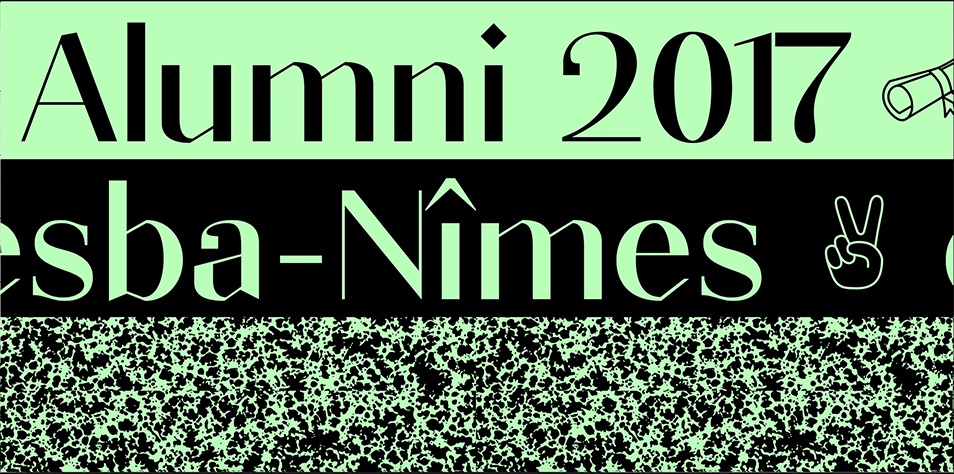
AT Scriptures Keops Display Font
The AT Scriptures Keops Display Font is a stunning and unique typeface that draws inspiration from ancient script and modern design. It's an excellent choice for a variety of projects that need a touch of history and sophistication, while remaining fresh and readable. This font is perfect for luxury branding, art gallery catalogs, book covers, and high-end invitations. The distinct letterforms give it a powerful and memorable presence, making it ideal for creating striking headlines, posters, and editorial designs that demand attention.
What makes the AT Scriptures Keops Display Font so exciting is its fusion of old-world charm with a contemporary aesthetic. The font's strong, confident lines and subtle historical nuances create a sense of gravitas and elegance. It’s not just a font; it's a piece of art that tells a story, making your designs feel rich with character and meaning. The meticulously crafted details of this typeface ensure that it stands out from the crowd, giving your project a unique and sophisticated identity.
The AT Scriptures Keops font family, designed by Matthieu Salvaggio, offers a selection of weights and styles to provide flexibility in your designs. This comprehensive family includes a full set of uppercase and lowercase letters, numbers, and punctuation. The display version is optimized for larger sizes, where its intricate details and unique character can truly shine.